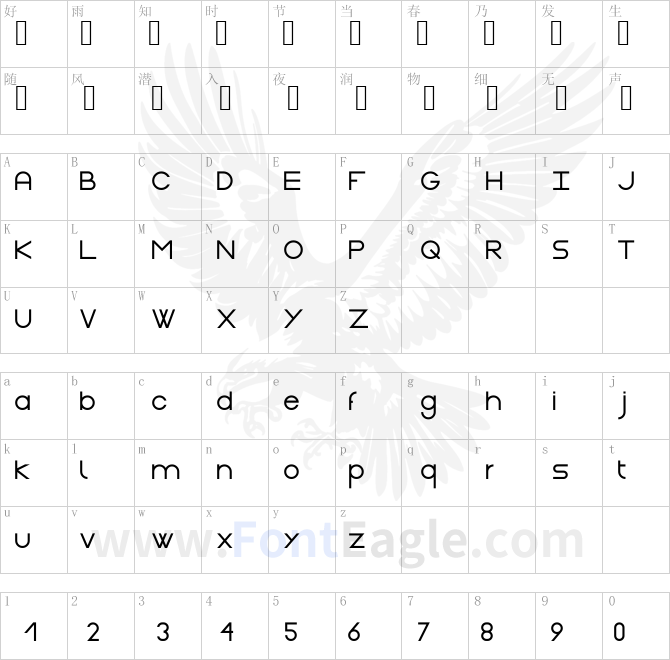
- Font name:Gasalt
- Font Full Name:Gasalt Black
Gasalt-Black is a great font, widely used in graphic design, single-page menu design, poster design and other fields, and is deeply loved by designers.Gasalt-Black download.